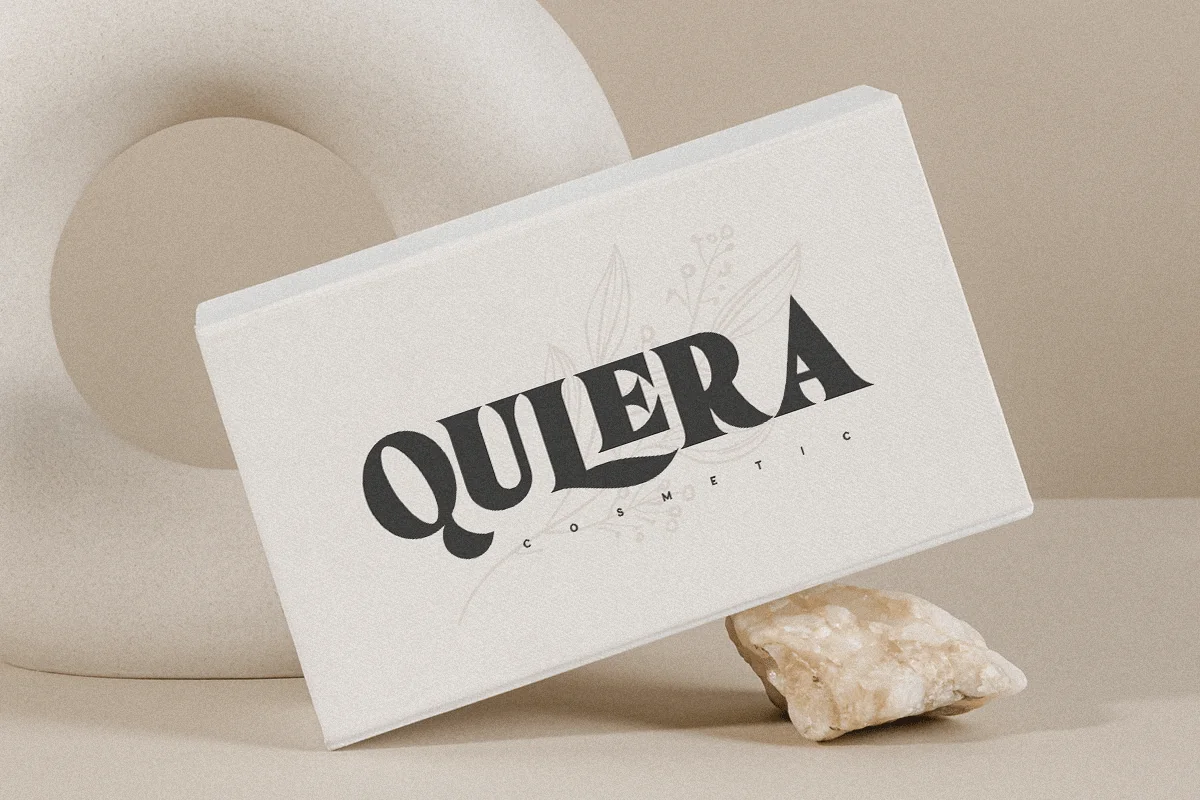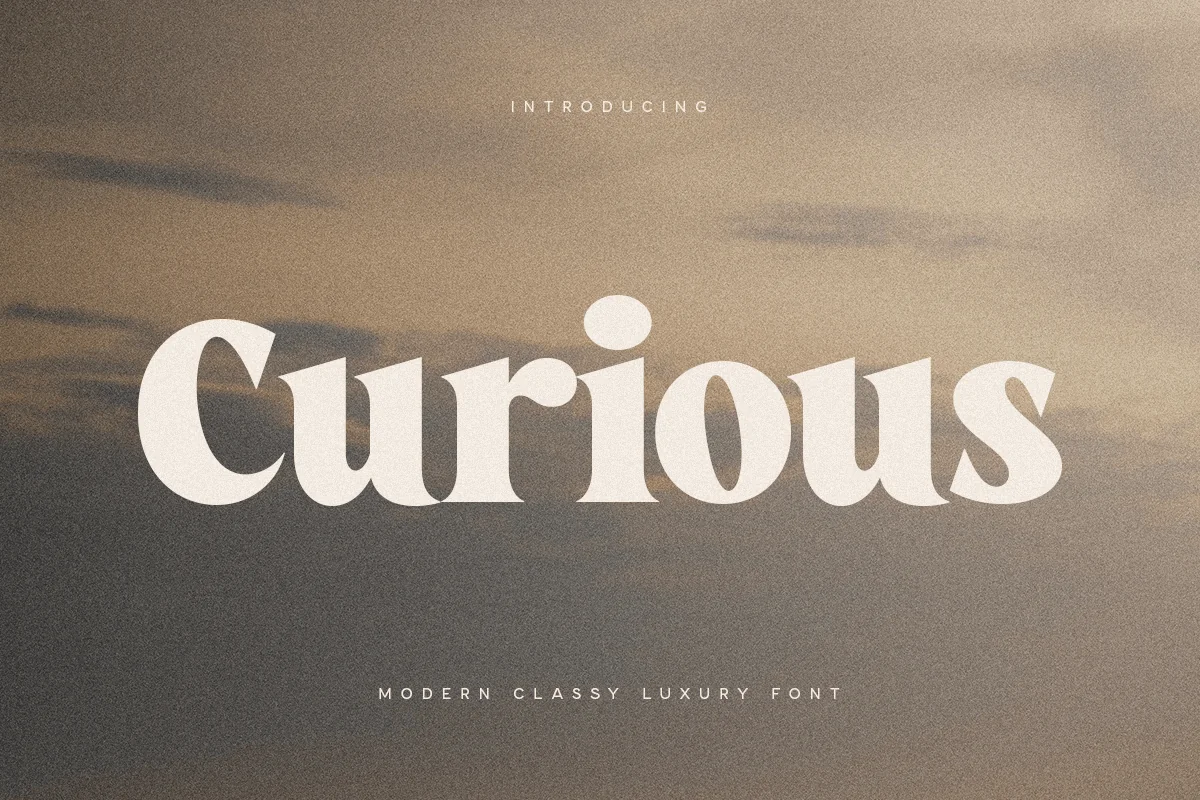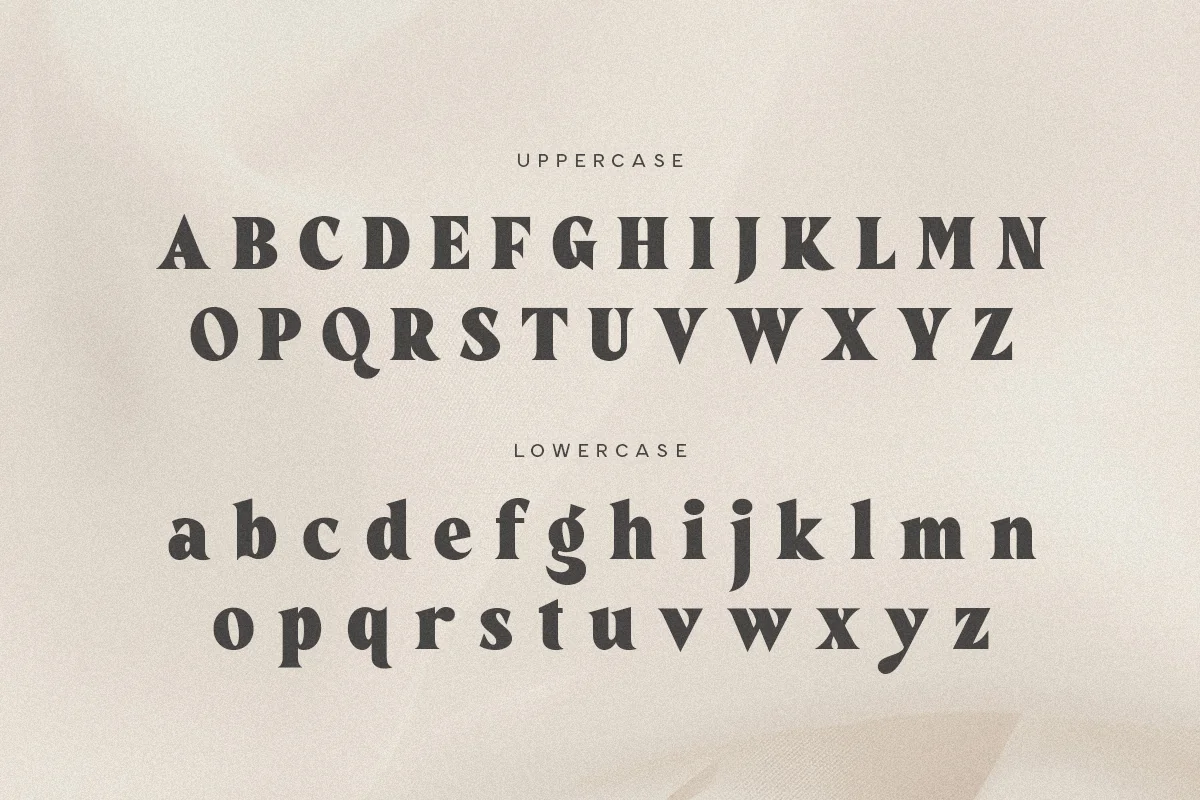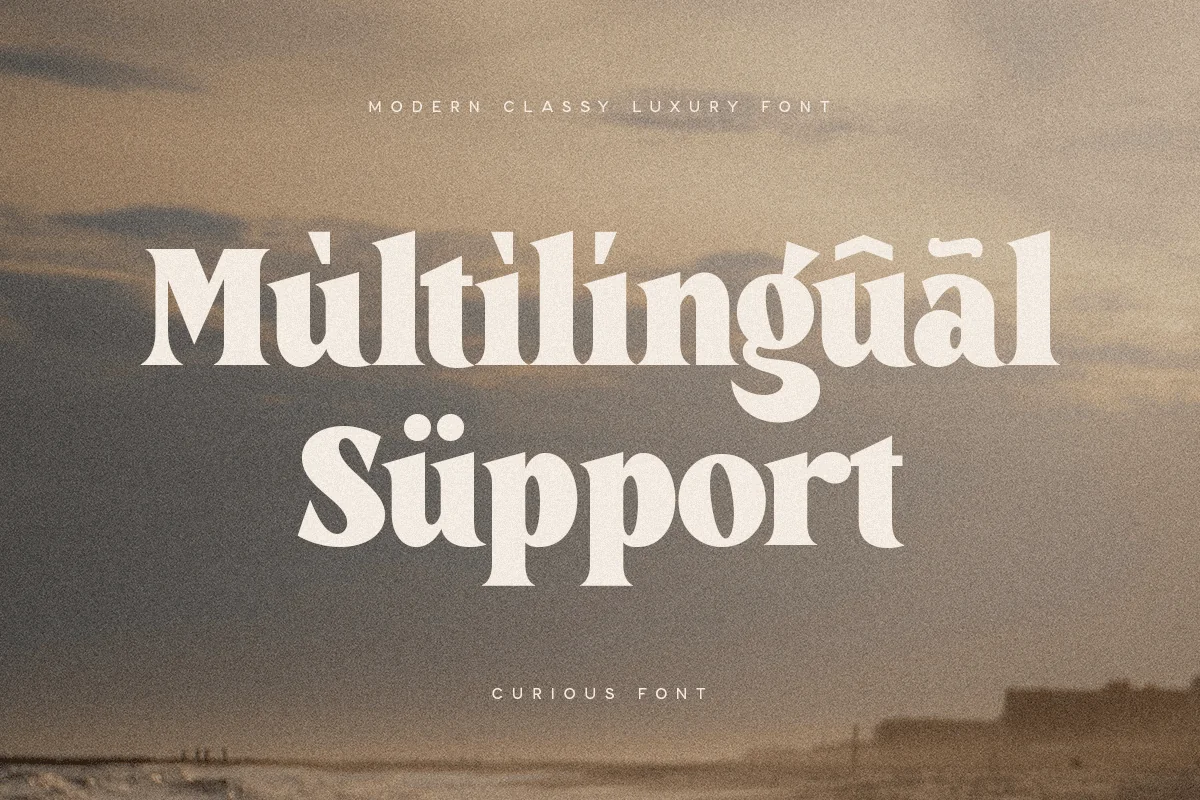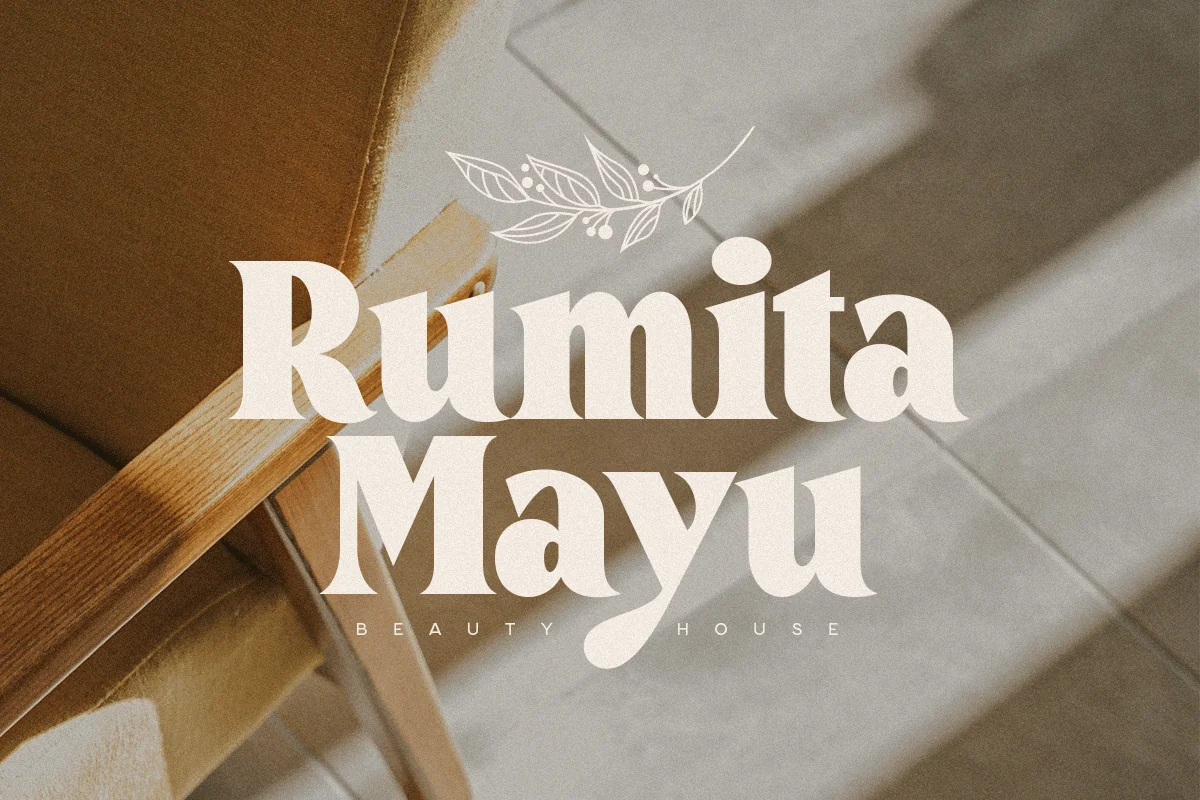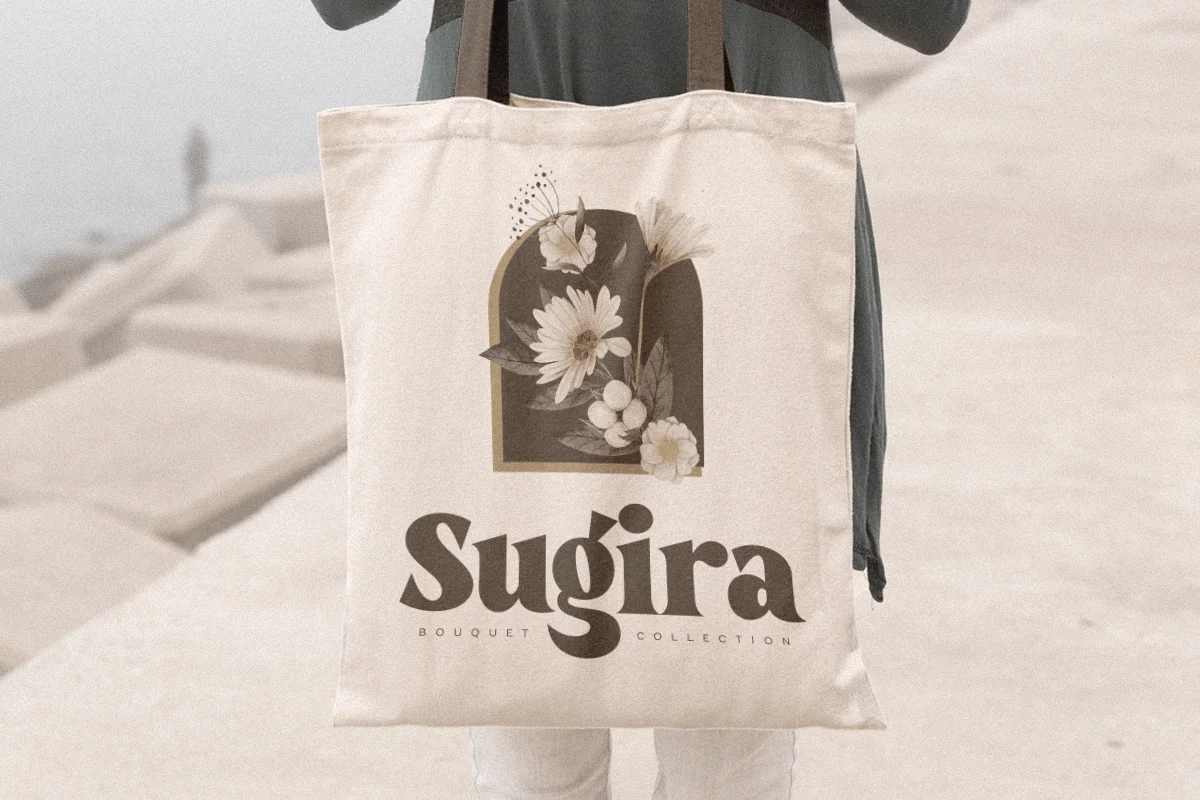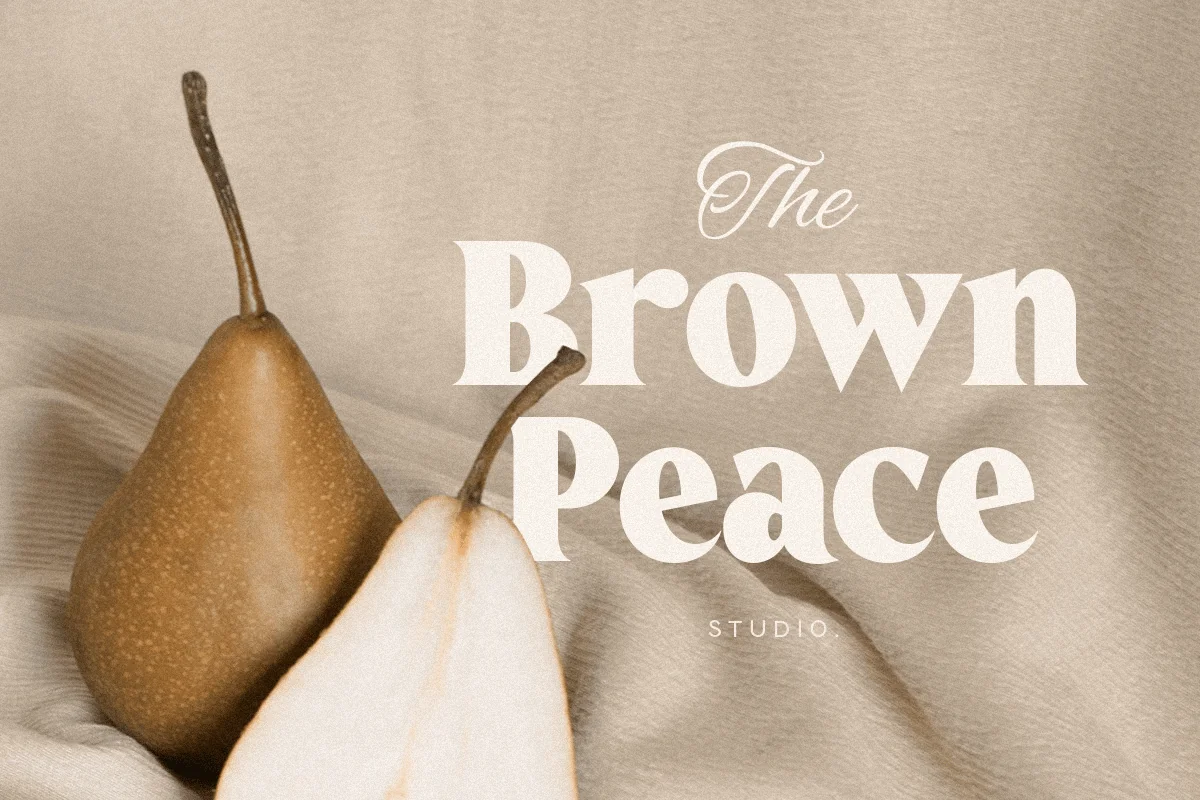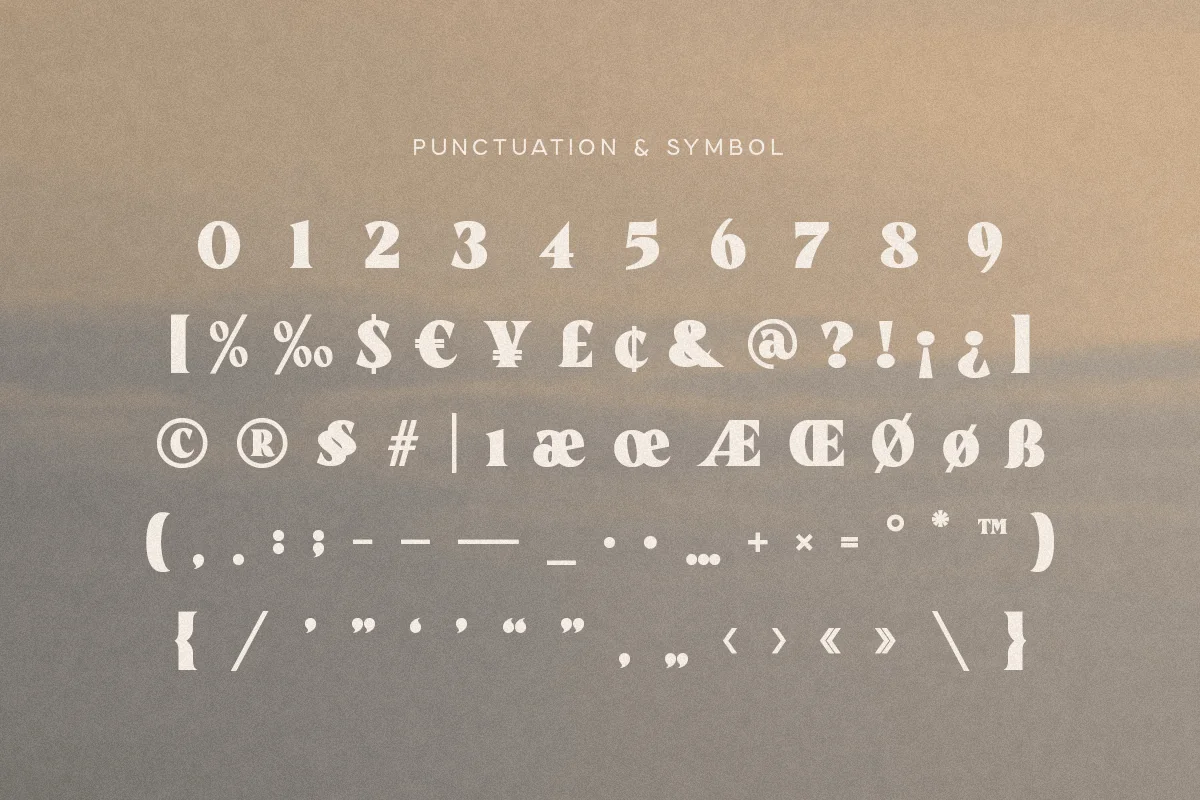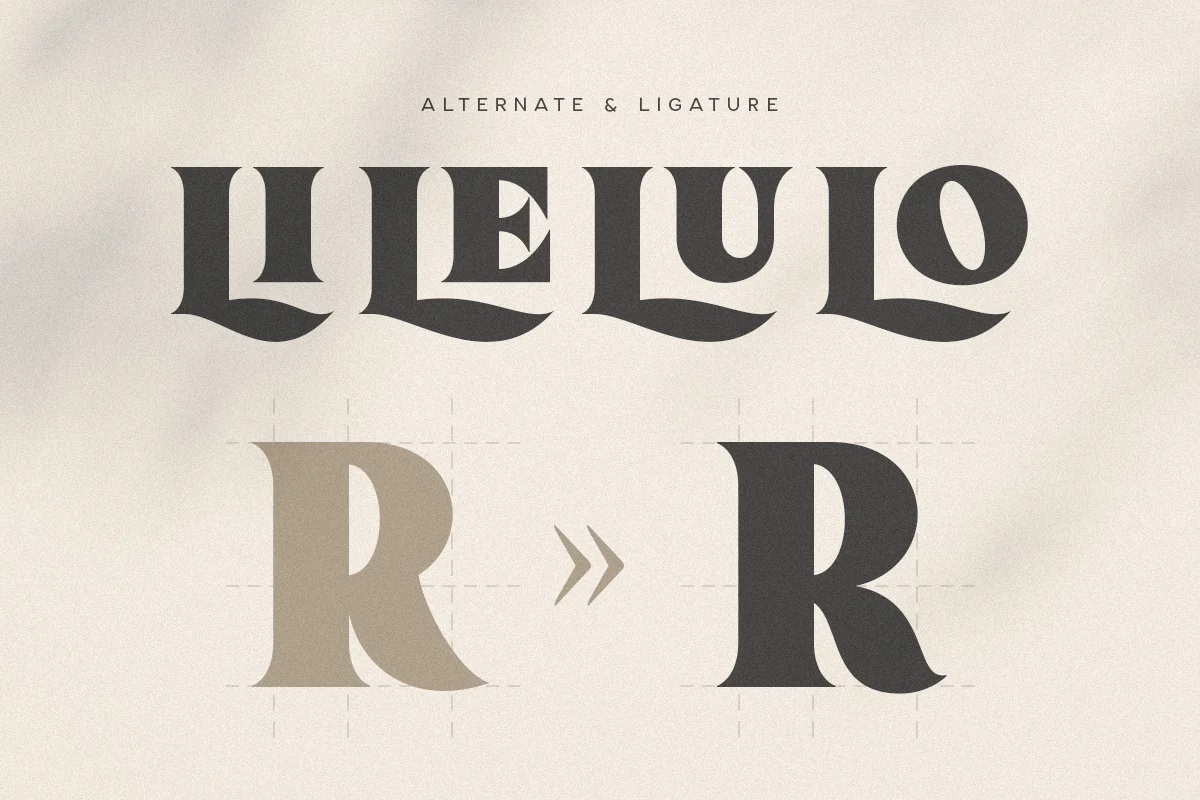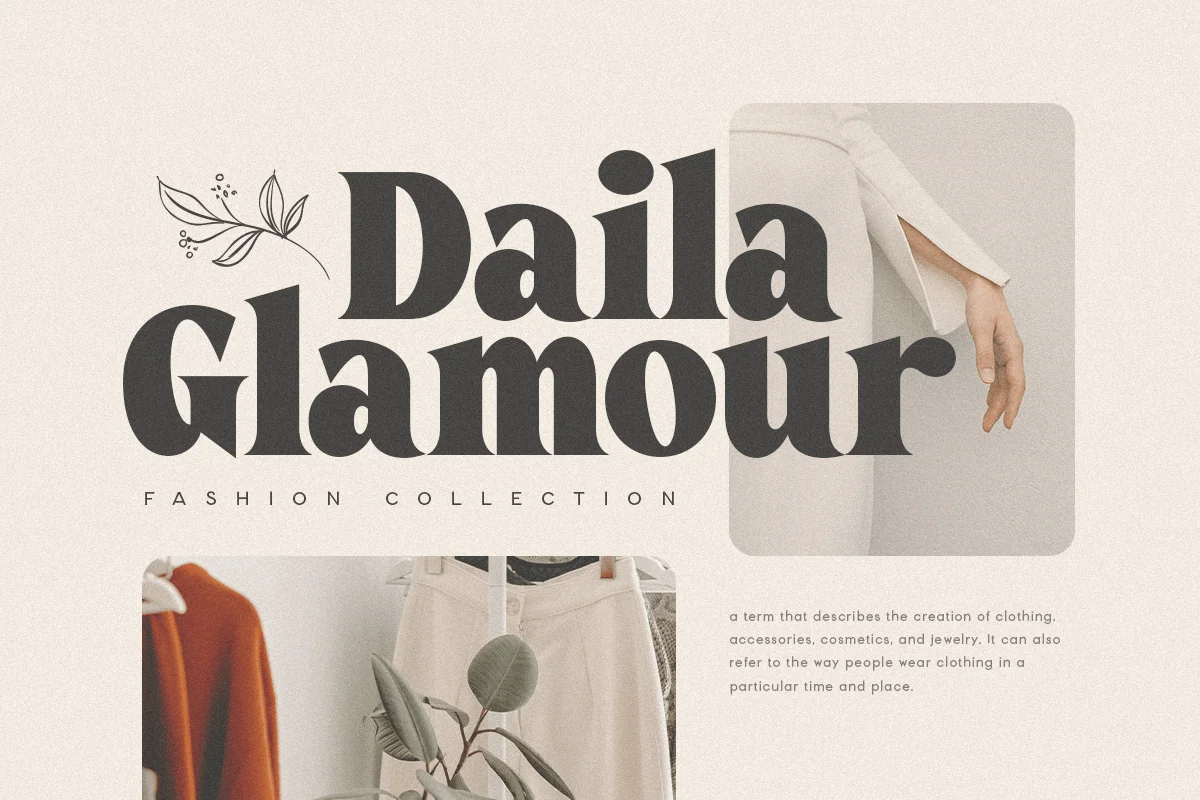
Curious – Modern Classy Luxury Font
Curious, a Cinematic Luxury Modern Font is a Modern Display font for Luxury, Elegant, and Cinematic Logo and Branding needs, with Cool style touch, font that you can combine to get any variations and unique shapes easily just in seconds. It is a serif display font with moderate contrast that perfect for branding projects, logo, wedding designs, social media posts, advertisements, product packaging, product designs, label, photography, watermark, invitation, stationery, and any projects, it makes with a high level of legibility.